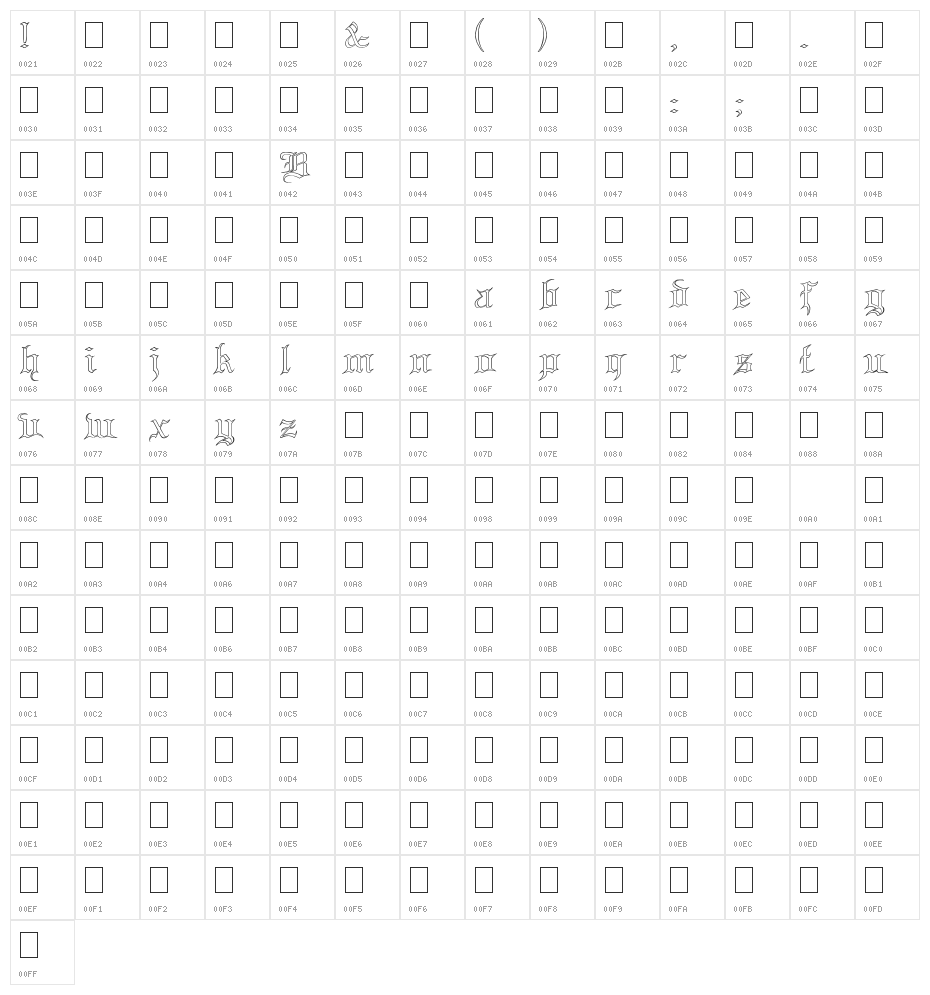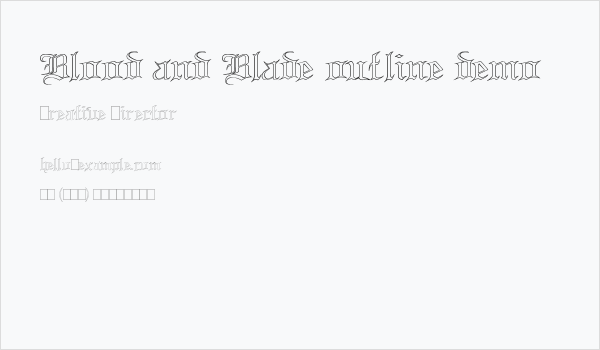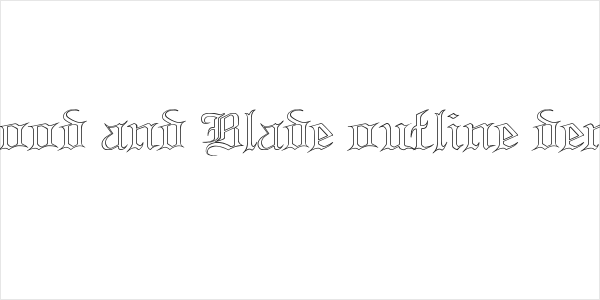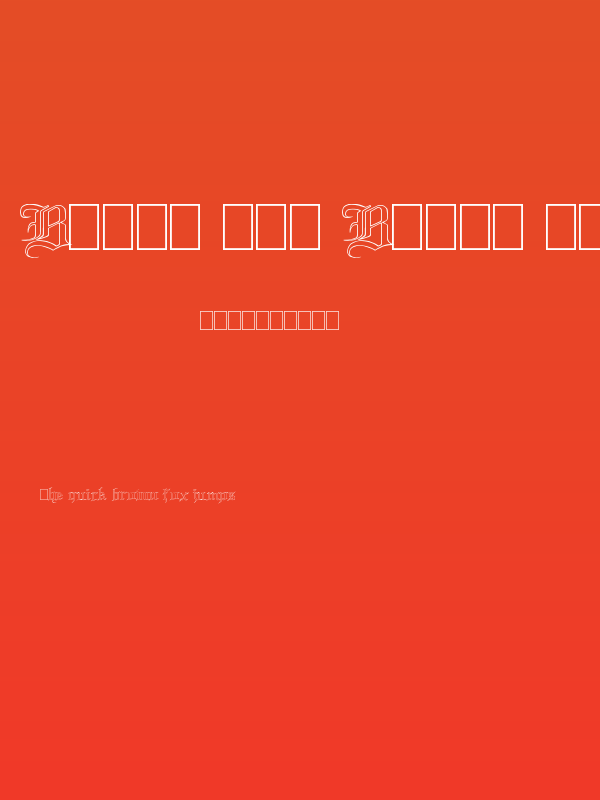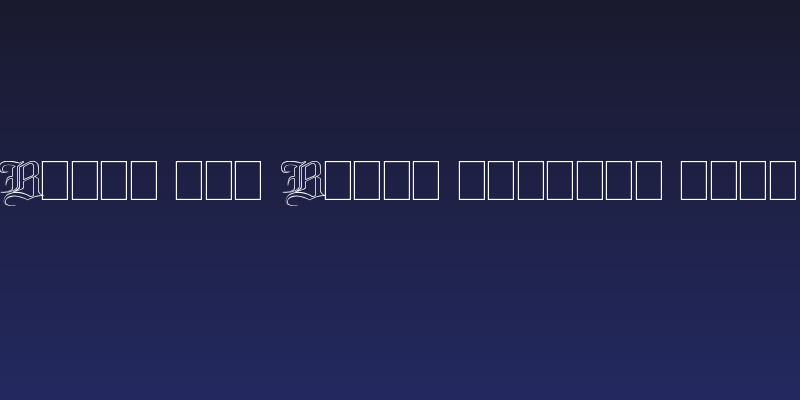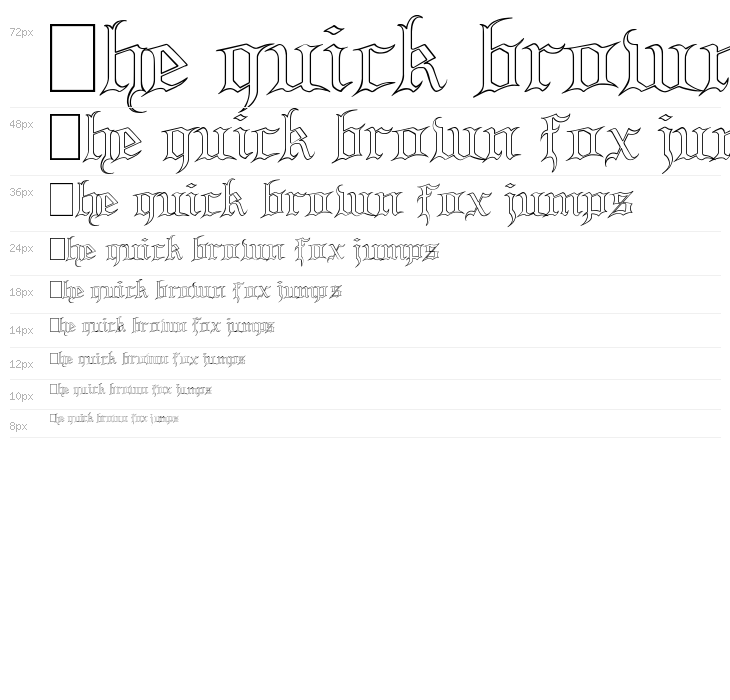
Blood and Blade outline demo Font
Blood and Blade outline demo Description
This font features a distinct medieval and gothic style, characterized by sharp, angular lines and intricate detailing. The uppercase letters are ornate, with elaborate flourishes that give them a regal appearance. The lowercase letters maintain the gothic theme with pointed serifs and a slightly condensed form, enhancing the dramatic effect. The numerals and special characters are consistent with the overall style, adding a touch of elegance and historical flair. This font is ideal for projects that require a vintage or medieval aesthetic, such as fantasy-themed designs, historical publications, or decorative headings.
| Use Case | Headlines, Logos, Decorative text |
| Proposed Projects | Fantasy-themed designs, historical publications, decorative headings, and event invitations. |